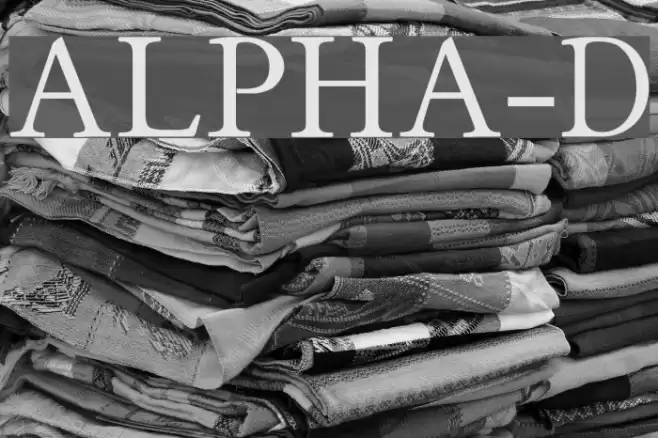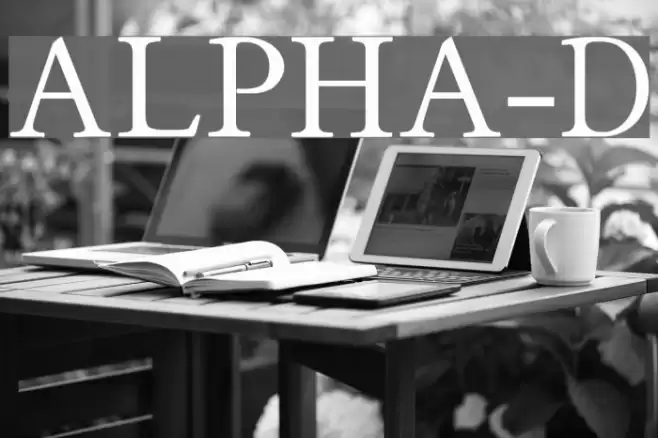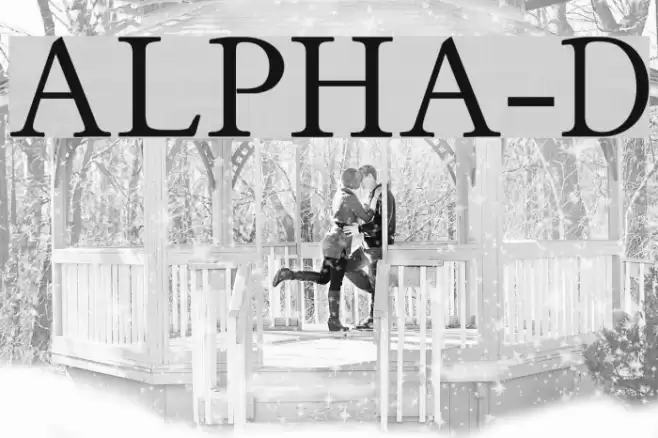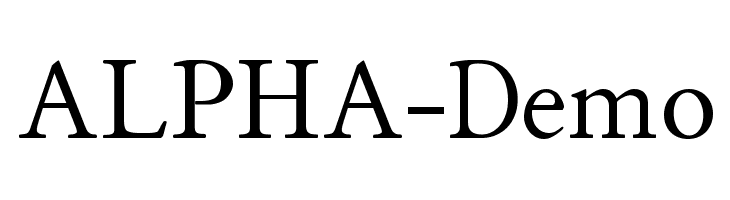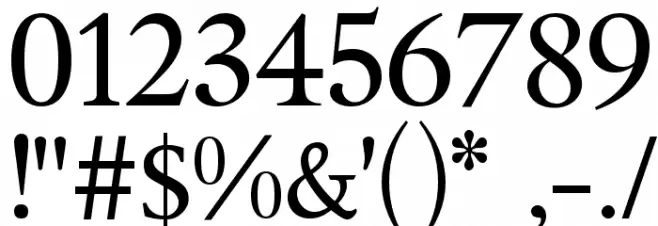
ALPHA-Demo Font
ALPHA-Demo Description
This font exhibits a classic serif style with a refined and elegant appearance. The uppercase letters are bold and commanding, while the lowercase letters maintain a balanced and readable form. The numerals are distinct and clear, ensuring legibility. Special characters are well-integrated, complementing the overall design. The strokes are consistent, with moderate contrast, giving it a timeless and professional look. This font is versatile, suitable for both digital and print media, and can be used effectively in various design contexts.
A classic serif font with elegant and refined characteristics from Uncategorized fonts.
- Proposed Projects: Ideal for editorial design, book covers, formal invitations, and branding projects.
- Overall Style: Classic